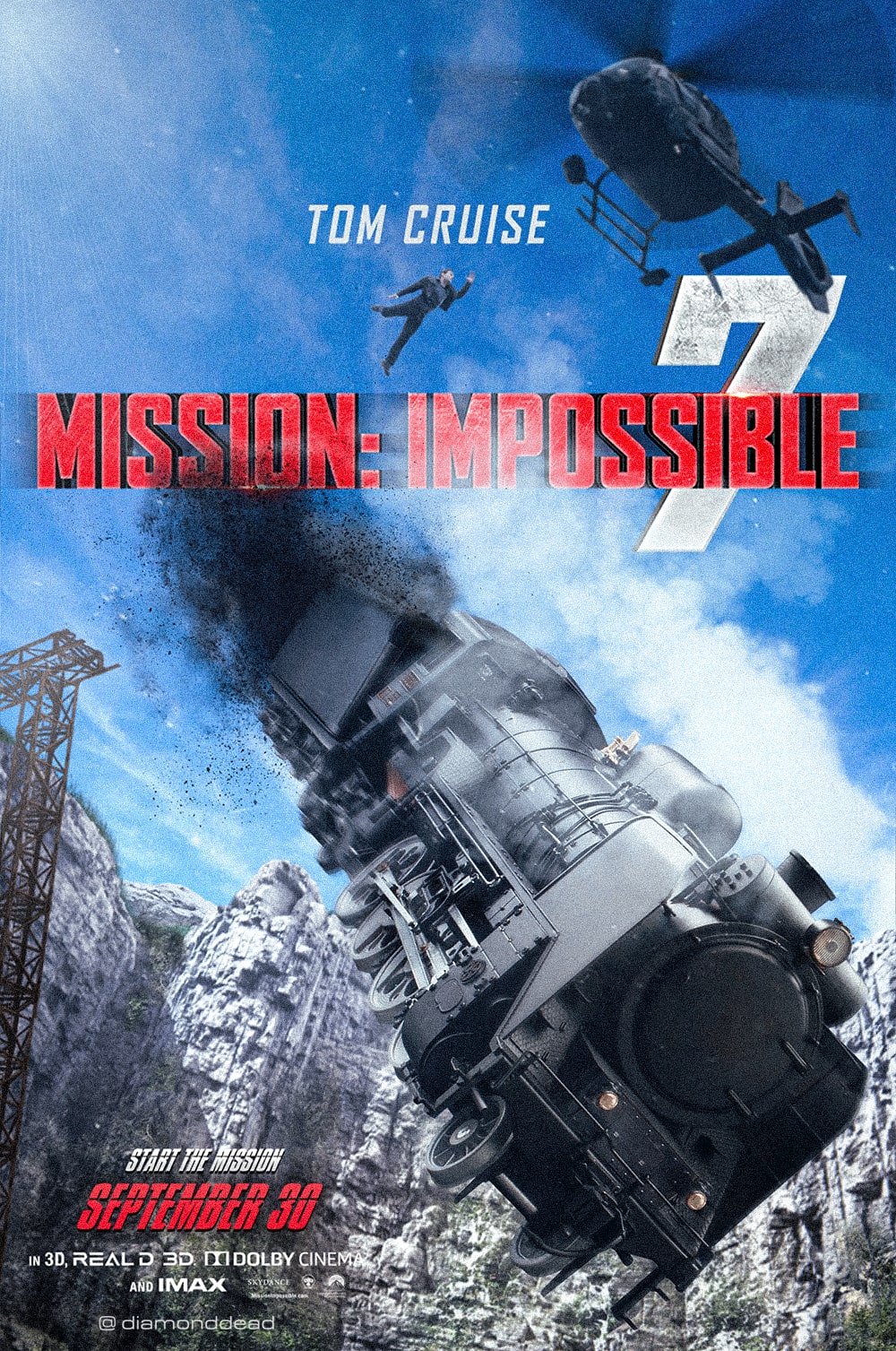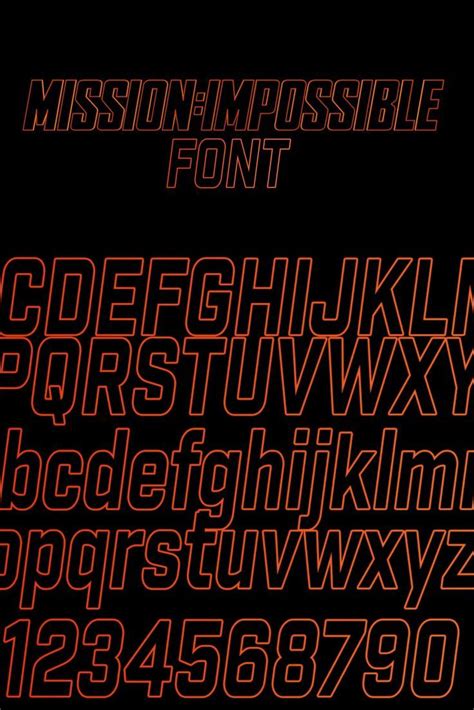
Mission Impossible Font
Mission Impossible Font - It is a free font. Click to find the best 2 free fonts in the mission impossible style. Impossible movie grossed over $457 million worldwide. Every font is free to download! Use our free mission impossible font generator tool. Web the font used for the film title in the poster is very similar to impossible. Impossible by apostrophic labs is a font based on the title logo from the movie mission: You can download the font for. Web impossible font | dafont.com english français español deutsch italiano português. The free font was created by apostrophic labs and is available in 7 styles.
Every font is free to download! Web impossible by apostrophic lab. Use our free mission impossible font generator tool. Web impossible font | dafont.com english français español deutsch italiano português. Impossible movie grossed over $457 million worldwide. Looking for mission impossible fonts? Web the font used for the film title in the poster is very similar to impossible. Click to find the best 2 free fonts in the mission impossible style. Impossible by apostrophic labs is a font based on the title logo from the movie mission: The free font was created by apostrophic labs and is available in 7 styles.
It is a free font. The free font was created by apostrophic labs and is available in 7 styles. Click to find the best 2 free fonts in the mission impossible style. Use our free mission impossible font generator tool. You can download the font for. Web impossible font | dafont.com english français español deutsch italiano português. Looking for mission impossible fonts? Web impossible by apostrophic lab. Web the font used for the film title in the poster is very similar to impossible. Impossible movie grossed over $457 million worldwide.
The free font was created by apostrophic labs and is available in 7 styles. You can download the font for. Web the font used for the film title in the poster is very similar to impossible. Web impossible by apostrophic lab. It is a free font.
Looking for mission impossible fonts? Impossible by apostrophic labs is a font based on the title logo from the movie mission: Web impossible by apostrophic lab. You can download the font for. Click to find the best 2 free fonts in the mission impossible style.
Web the font used for the film title in the poster is very similar to impossible. It is a free font. Web impossible font | dafont.com english français español deutsch italiano português. Use our free mission impossible font generator tool. Every font is free to download!
Web the font used for the film title in the poster is very similar to impossible. Looking for mission impossible fonts? Impossible movie grossed over $457 million worldwide. The free font was created by apostrophic labs and is available in 7 styles. Web impossible font | dafont.com english français español deutsch italiano português.
The free font was created by apostrophic labs and is available in 7 styles. Impossible by apostrophic labs is a font based on the title logo from the movie mission: You can download the font for. Every font is free to download! Click to find the best 2 free fonts in the mission impossible style.
Mission Impossible Vector Font
The free font was created by apostrophic labs and is available in 7 styles. Impossible by apostrophic labs is a font based on the title logo from the movie mission: Looking for mission impossible fonts? Use our free mission impossible font generator tool. Web the font used for the film title in the poster is very similar to impossible.
Mission Impossible Rogue Nation Film Font Download fonts
Web impossible by apostrophic lab. You can download the font for. Every font is free to download! Looking for mission impossible fonts? The free font was created by apostrophic labs and is available in 7 styles.
Mission Impossible Font Generator
Click to find the best 2 free fonts in the mission impossible style. Web the font used for the film title in the poster is very similar to impossible. Looking for mission impossible fonts? Impossible movie grossed over $457 million worldwide. Impossible by apostrophic labs is a font based on the title logo from the movie mission:
Mission Impossible Dead Reckoning Part One Font Download fonts
Web impossible font | dafont.com english français español deutsch italiano português. Use our free mission impossible font generator tool. You can download the font for. Impossible by apostrophic labs is a font based on the title logo from the movie mission: Impossible movie grossed over $457 million worldwide.
Use Our Free Mission Impossible Font Generator Tool.
Web impossible by apostrophic lab. It is a free font. Every font is free to download! Web the font used for the film title in the poster is very similar to impossible.
Impossible By Apostrophic Labs Is A Font Based On The Title Logo From The Movie Mission:
Click to find the best 2 free fonts in the mission impossible style. Web impossible font | dafont.com english français español deutsch italiano português. Looking for mission impossible fonts? The free font was created by apostrophic labs and is available in 7 styles.